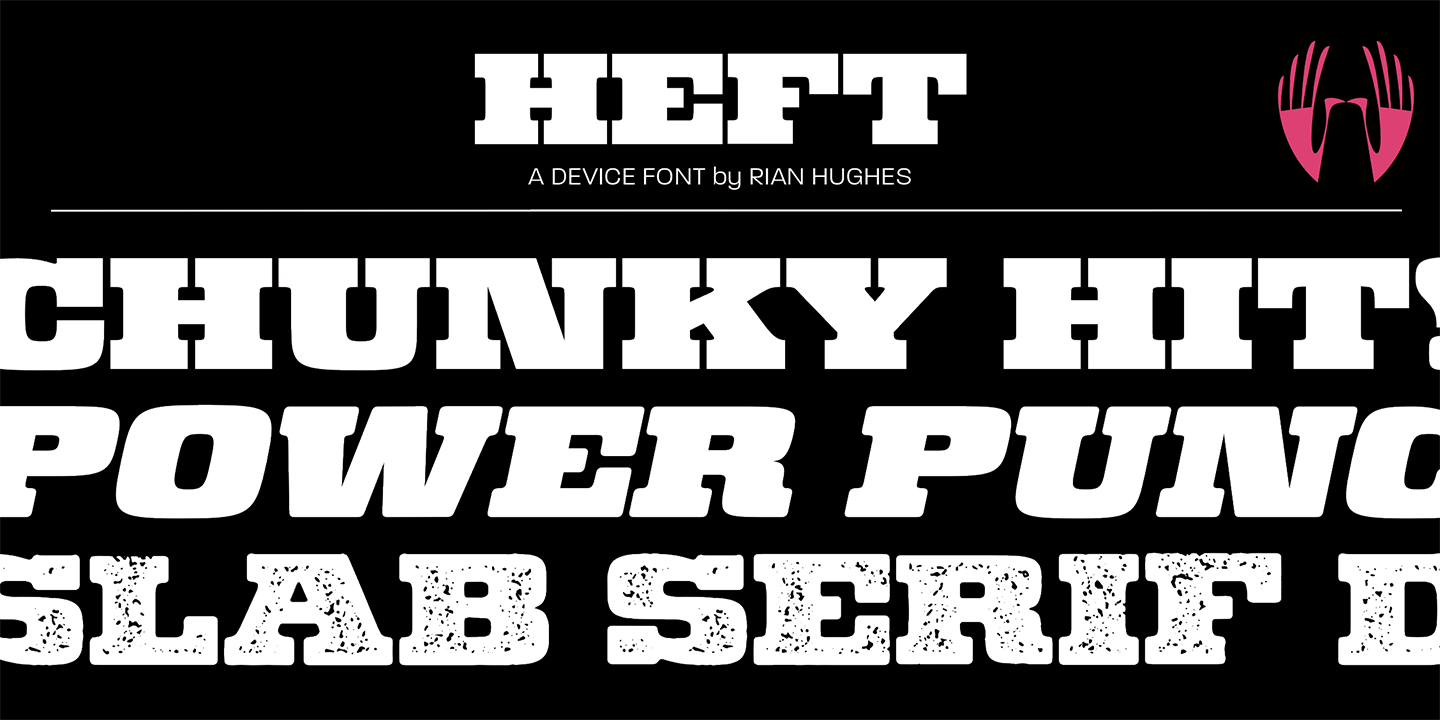
Heft Font is a strikingly robust and impactful typeface, perfect for designs that aim to convey strength, reliability, and a powerful, no-nonsense presence. Its solid forms, often characterized by heavy weights and confident lines, make it an excellent choice for industrial branding, construction company logos, sports event promotions, and bold headlines. Imagine it gracing the side of a heavy-duty vehicle, providing an unyielding visual for fitness apparel, or adding a dominant presence to safety signage. This font is also superb for music festival posters (especially rock or electronic genres), gaming titles demanding authority, and any project where an undeniable sense of durability, directness, and visual weight is key. It doesn't just display text; it asserts its presence with unwavering force.
What makes Heft Font so exciting is its immediate ability to communicate raw power and steadfast stability. Its inherently heavy design ensures that any message it conveys stands out and leaves a lasting impression. This distinctive characteristic makes it a fantastic choice for designers looking to cut through visual clutter and make an undeniable impact. It’s a font that speaks with an uncompromising voice, making it ideal for brands and content creators who want to convey resilience, confidence, and a powerful, no-frills aesthetic. Its commanding appeal can make any headline or slogan feel more significant and visually compelling, creating a sense of reliability and strength.
The Heft Font family typically offers a range of weights that emphasize its core strength, providing comprehensive design flexibility within its powerful aesthetic. While it might not have the subtle stylistic variations of more decorative fonts, its utility lies in its diverse stroke thicknesses and their inherent impact. You can generally expect to find essential members such as:
• Heft Regular (the primary heavy style)
• Heft Bold (for an even more dominant presence)
• Heft Black (the heaviest option for maximum impact)
• Heft Condensed (if available, for space-efficient power)
• Heft Outline (for a strong, empty effect)
These various weights empower designers to create effective visual hierarchies, emphasize important information, and maintain a consistent, powerful, and commanding look throughout all design assets. The opportunity to utilize Heft Font Free Download is an excellent way to experience its unique strength and impactful presence for your personal design ventures.